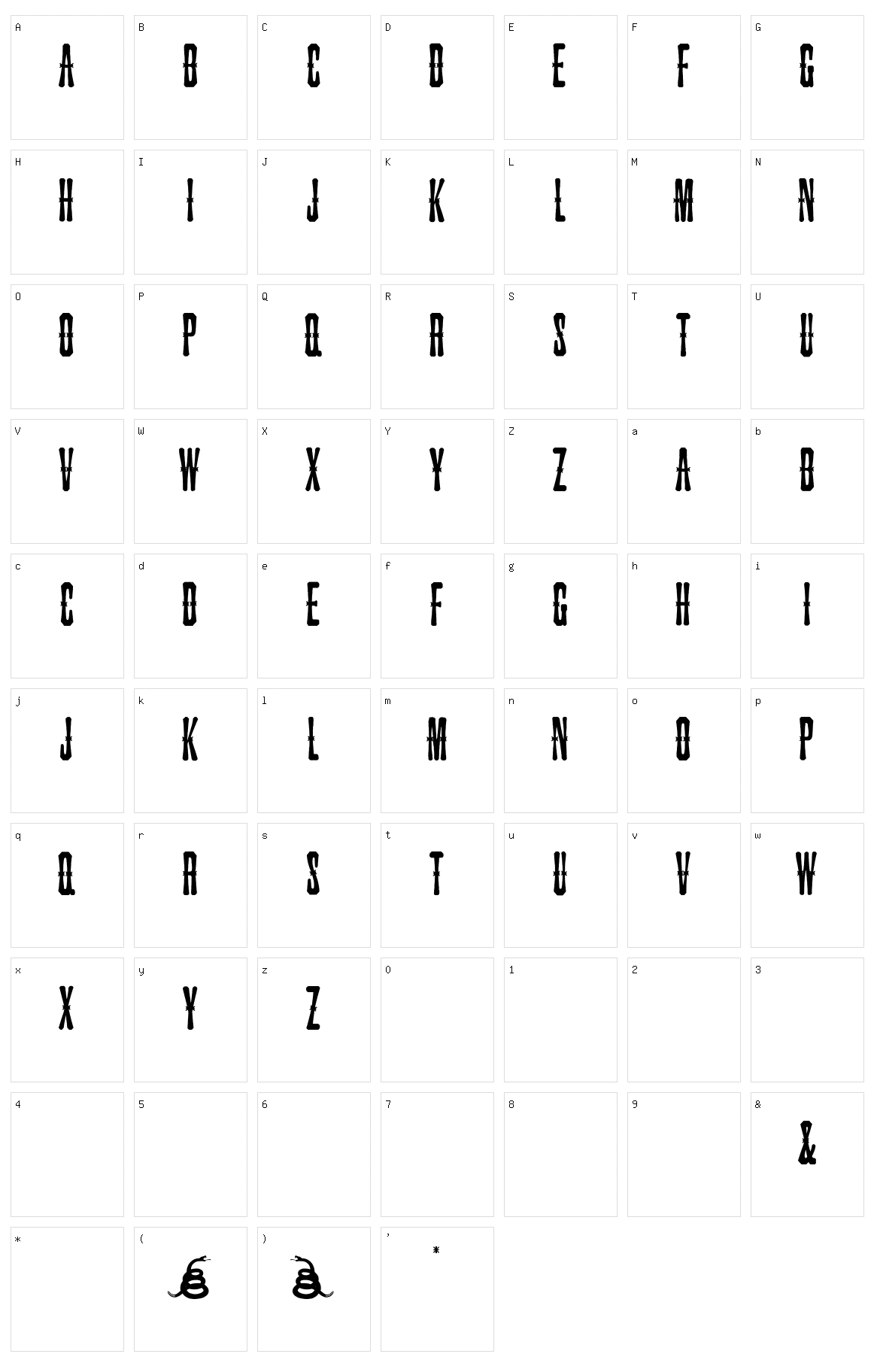
The free font Snakebite Saloon is carefully designed by Tom Kolter, showcasing a thoughtful balance of creativity and usability and falls under the Western font style. When you download the ZIP file, it contains only 63.01 KB of font files, making it lightweight and quick to download. Please review the license details below to understand permitted usage and distribution rights. If license information is not available, we recommend using this font for personal projects only or contacting the author directly for commercial usage permissions.
Snakebite Saloon